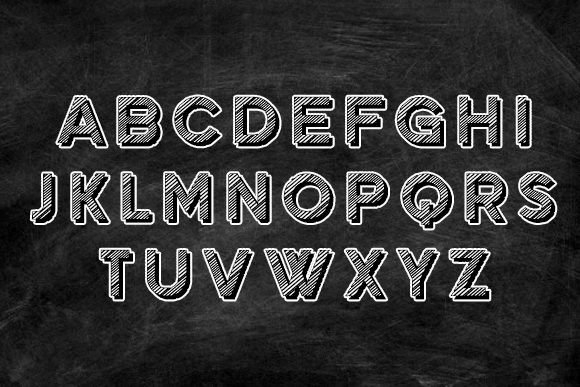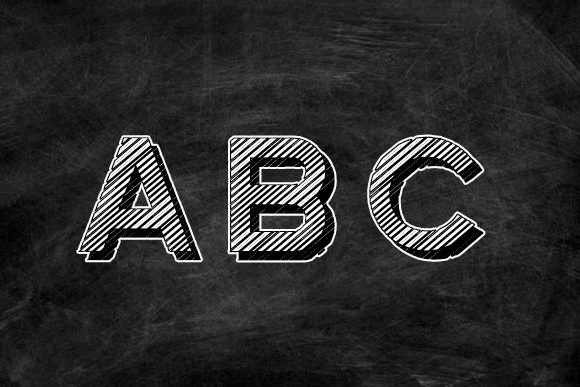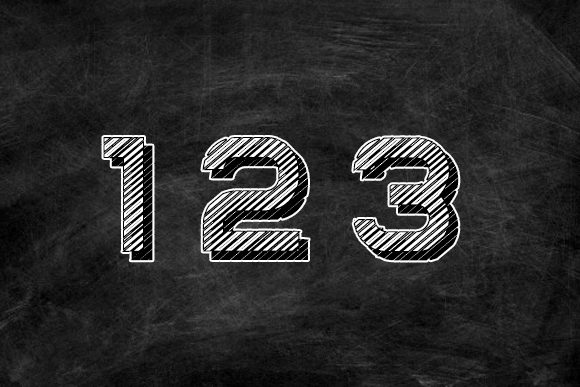
Unleash Your Creativity with Chalk Board Font
Have you ever been brainstorming a new design project, and suddenly, a burst of creativity hits you? The ideas start flowing, and you can’t wait to bring them to life. For designers like you, the right tools can make all the difference. That’s where the Chalk Board Font comes in – a stylish and versatile decorative font that’s sure to inspire your next big project.
This fantastic font is designed to add a touch of personality to your designs, making them stand out from the crowd. With its unique, hand-drawn feel, the Chalk Board Font is perfect for creating eye-catching graphics, posters, and more. Whether you’re working on a branding project, a marketing campaign, or just a fun personal design, this font is a valuable addition to your toolkit.
Key Features of Chalk Board Font
- Unique Characteristics: Chalk Board Font features a distressed, hand-drawn look, with uneven letter spacing and subtle texture, giving it a unique and playful feel.
- Legibility: Despite its distressed appearance, Chalk Board Font is highly legible, making it suitable for a wide range of applications, from signage to digital displays.
- Support for Special Characters: Chalk Board Font includes a comprehensive set of special characters, including punctuation marks, numbers, and currency symbols.
- Multi-Language Support: This font supports a wide range of languages, including Latin, Cyrillic, and Greek scripts, making it a versatile choice for international applications.
Chalk Board Font Review
Overall, I think the Chalk Board font is a great addition to any design project. ✨ It’s playful, fun, and adds a unique touch to any text. The font is perfect for creating a casual, rustic vibe, making it ideal for projects like children’s menus, educational materials, or even social media graphics.
Here are some of the things I love about the Chalk Board font: ✨
- Unique, hand-written feel that adds character to any text
- Works well in a variety of contexts, from casual to creative projects
- Can be used to create a sense of nostalgia or playfulness
- May not be the best choice for formal or professional projects
- Can be difficult to read in smaller font sizes or when used for large blocks of text
- May not be suitable for projects that require a high level of sophistication or elegance
Overall, I think the Chalk Board font is a great choice for designers who want to add a playful touch to their projects. While it may not be the best choice for every project, it’s definitely a versatile and fun font to work with.
Practical Application Guide for Chalk Board Font
Some popular use cases for Chalk Board Font include:
– Creating a vintage or distressed look for your designs.
– Adding a playful or whimsical touch to your text.
– Using it for titles or headings to draw attention.
– Creating a retro or nostalgic feel for your designs.
Alternatives to Chalk Board Font
Great Vibes is a beautiful script font that resembles handwriting. It’s perfect for adding a touch of elegance to your designs, especially for wedding invitations, quotes, or any other text that requires a personal and romantic feel.
Compared to Chalk Board Font, Great Vibes is more elegant and refined. While Chalk Board Font has a more rustic and casual feel, Great Vibes is more sophisticated and eye-catching.
Pacifico is a beautiful and elegant script font that’s perfect for designs that require a touch of luxury and sophistication. It’s great for use in logos, headings, or any other text that needs to stand out.
Pacifico is similar to Chalk Board Font in the sense that both are elegant and refined. However, Pacifico is more polished and sleek, making it perfect for high-end designs.